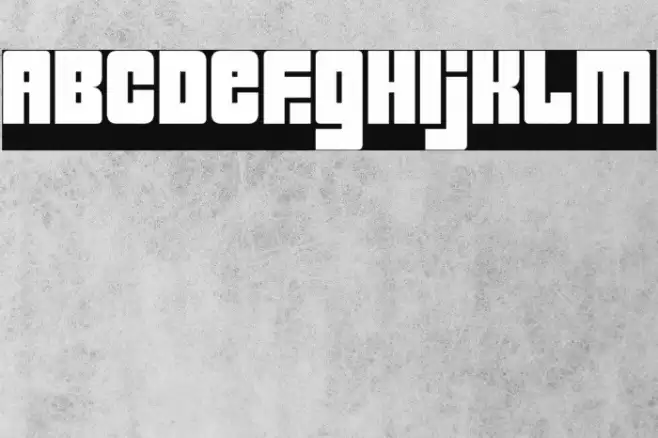
Pinch My Ride Font
Pinch My Ride Description
This font features a bold and blocky design with a strong geometric influence. Each character is constructed with thick, uniform strokes that create a sense of solidity and impact. The uppercase and lowercase letters maintain a consistent height, contributing to a cohesive and structured appearance. The numbers and special characters are designed with the same boldness, ensuring they stand out prominently. The overall style is modern and assertive, making it suitable for projects that require a strong visual presence.
A bold, geometric font with a modern and assertive style from Uncategorized fonts.
- Proposed Projects: Ideal for branding, posters, headlines, and any design that requires a strong, impactful typeface.